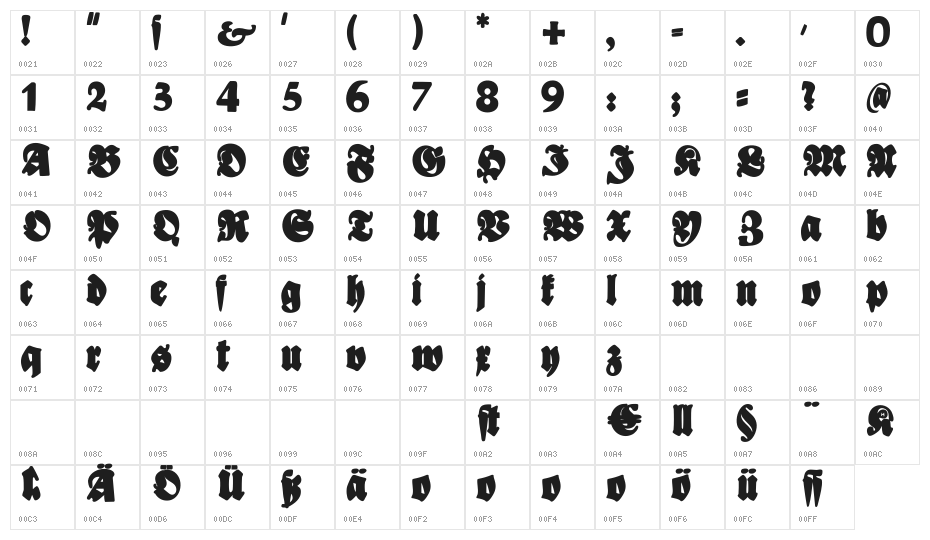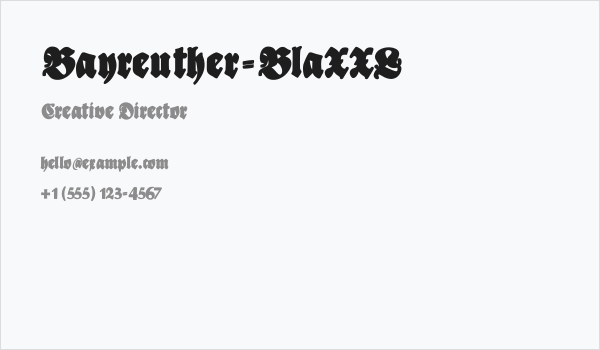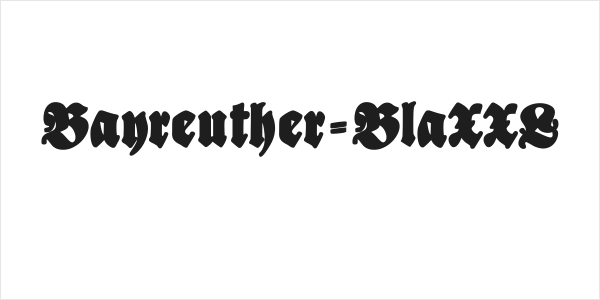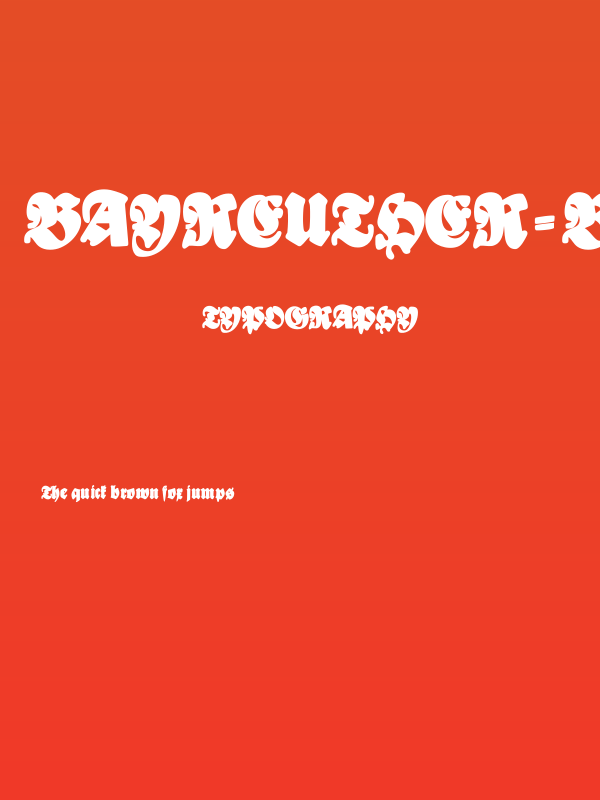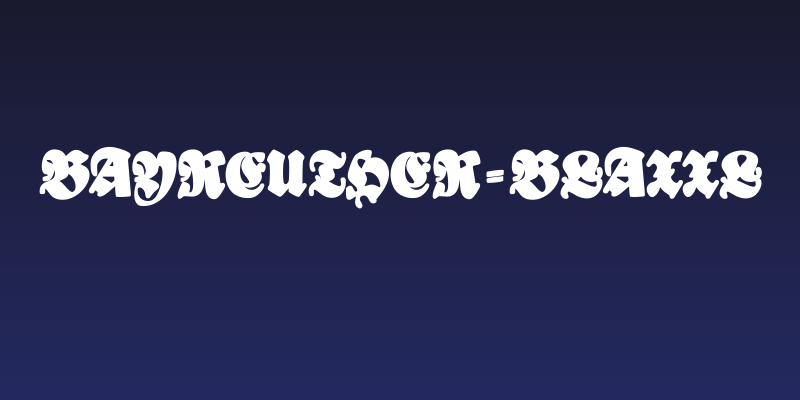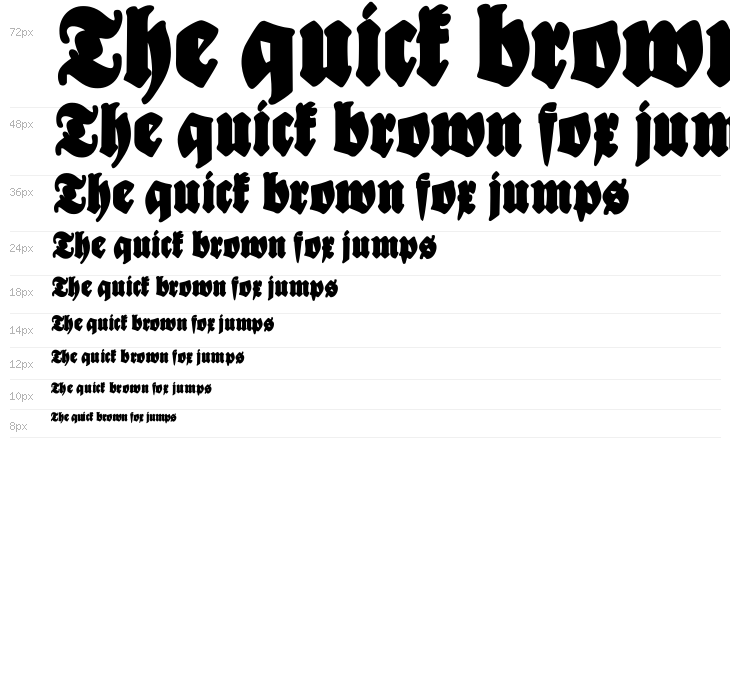
Bayreuther-BlaXXL Font
Bayreuther-BlaXXL Description
This font features a bold and dramatic blackletter style, characterized by its intricate and ornate letterforms. The strokes are thick and heavy, with sharp angles and pointed edges, giving it a strong and authoritative presence. The uppercase letters are particularly elaborate, with flourishes and embellishments that add to the font's decorative appeal. The lowercase letters maintain the same boldness but are slightly more restrained in their design. The numerals and special characters are consistent with the overall style, ensuring a cohesive look across all text elements. This font is ideal for creating a striking visual impact.
| Proposed Projects | Suitable for projects that require a historical or gothic aesthetic, such as event posters, book covers, or branding for themed events. |